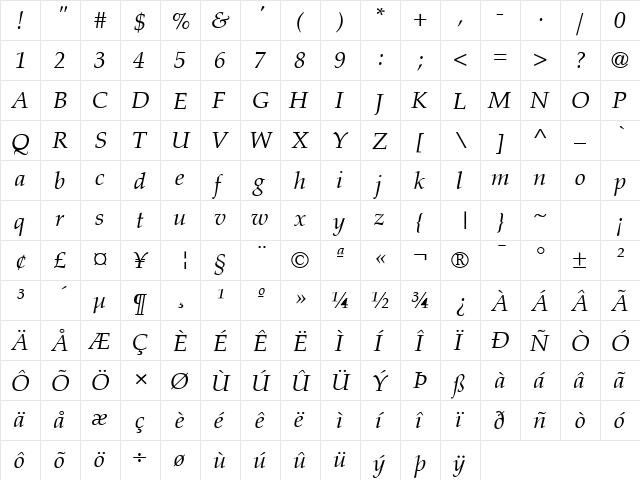
LatinoPalSH Italic
Design Context for LatinoPalSH Typeface
LatinoPalSH is a composed and adaptable typeface that performs quietly and consistently across a wide range of design contexts. The slanted form adds forward momentum and visual energy.